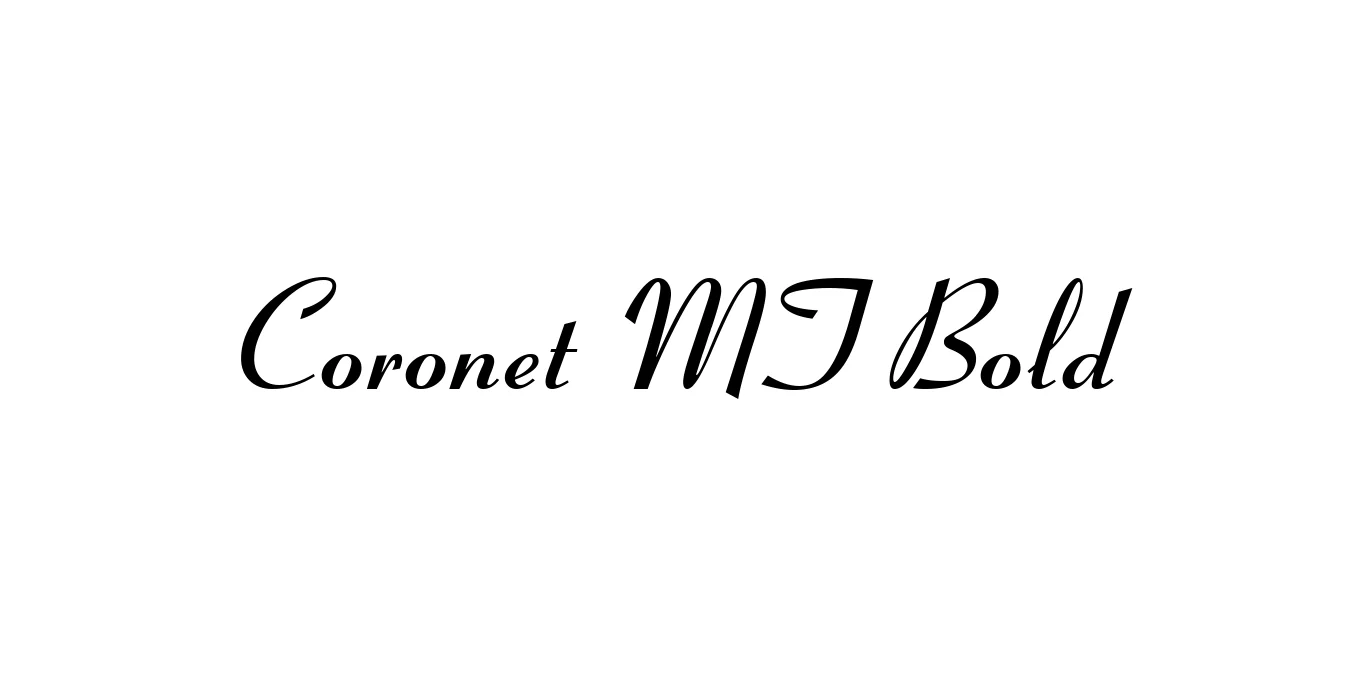
Coronet MT Bold
Designed by Robert Hunter Middleton
Coronet MT Bold was originally designed by the prolific typographer Robert Hunter Middleton in 1937 for the Ludlow Typograph Company. This typeface is a quintessential example of mid-century formal script, characterized by its fluid, calligraphic strokes and moderate slant that evoke a sense of timeless sophistication and traditional charm.
The Bold weight of this family provides a more assertive presence on the page while maintaining the rhythmic elegance of the original design. It has survived the transition from hot metal type to digital formats, remaining a preferred choice for designers who require a script font that balances high-end decorative flair with exceptional legibility for display purposes.
Coronet MT Bold Best Uses
Ideal for elegant invitations, RSVPs, and formal place cards.
Perfect for traditional diplomas, awards, and official recognition documents.
Used extensively for luxury logos and upscale boutique visual identities.
Works effectively for decorative titles in magazine layouts and editorial design.